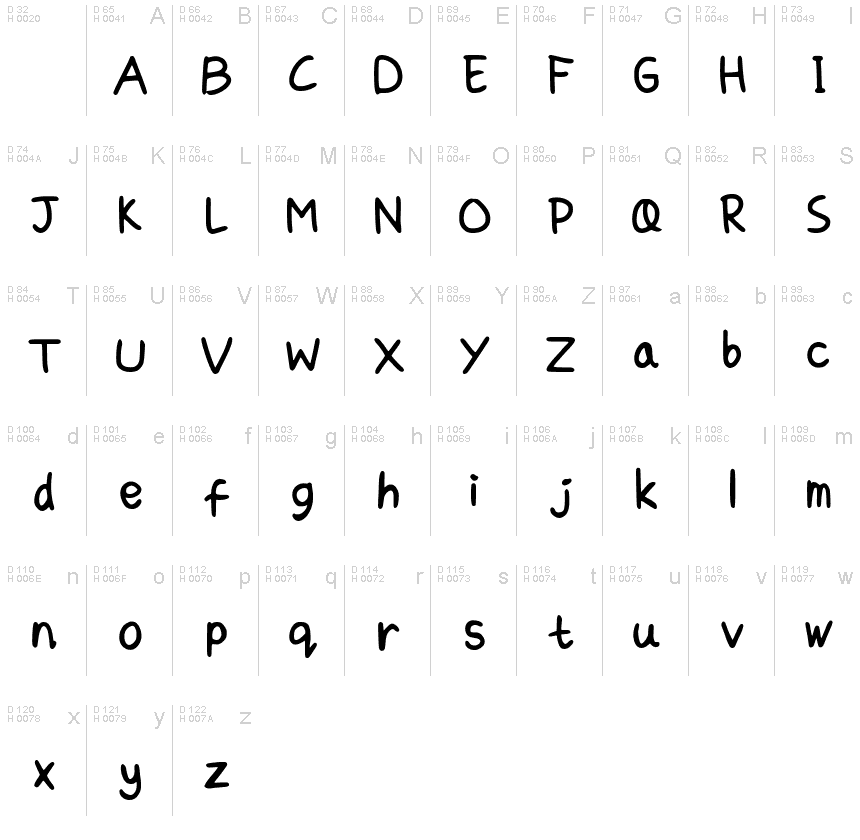
Luppy_font Regular
Luppy, the casual handwritten font by Itz Luppy, adds a playful touch to your creative projects. With its unique and organic strokes, this font is perfect for designing greeting cards, invitations, and personal stationery. Its relaxed and friendly feel also suits social media graphics, blog headers, and lifestyle websites. The versatile nature of Luppy makes it suitable for branding projects that need a touch of authenticity, such as artisanal products or boutique businesses. Let your imagination run wild with Luppy's charming handwritten style that brings warmth and character to any design endeavor.